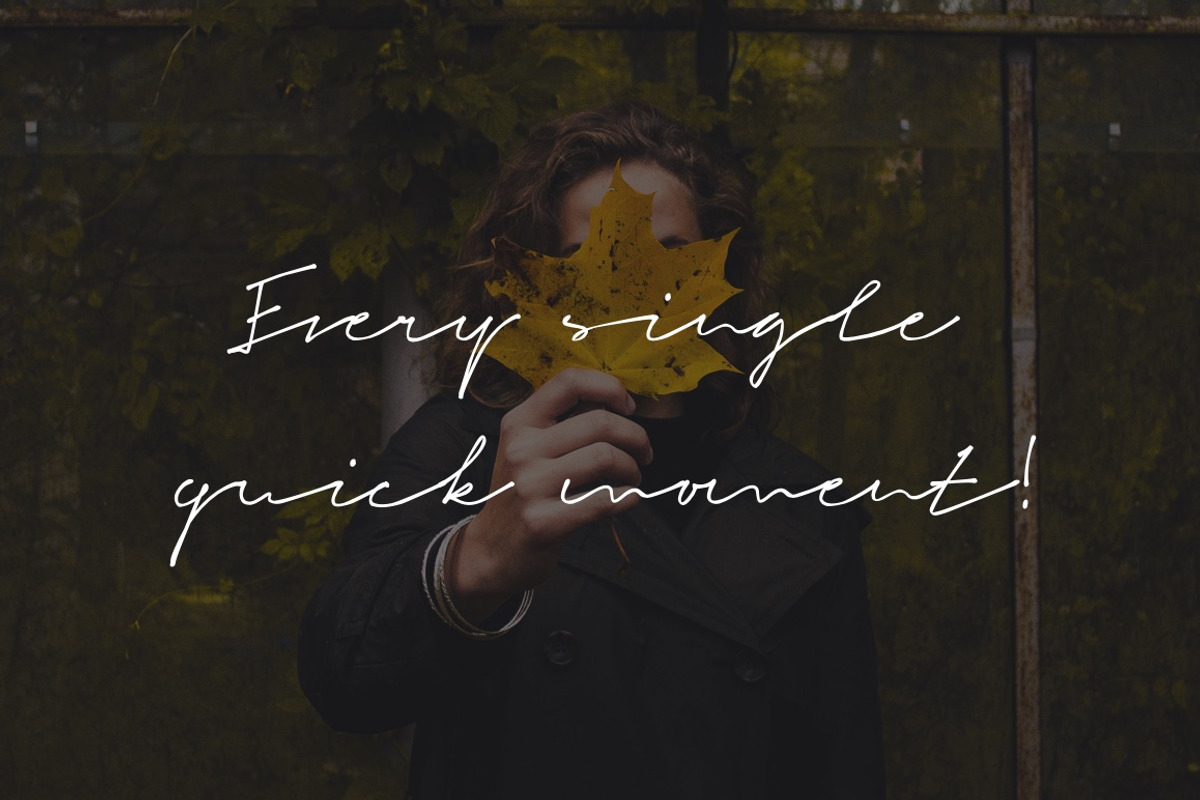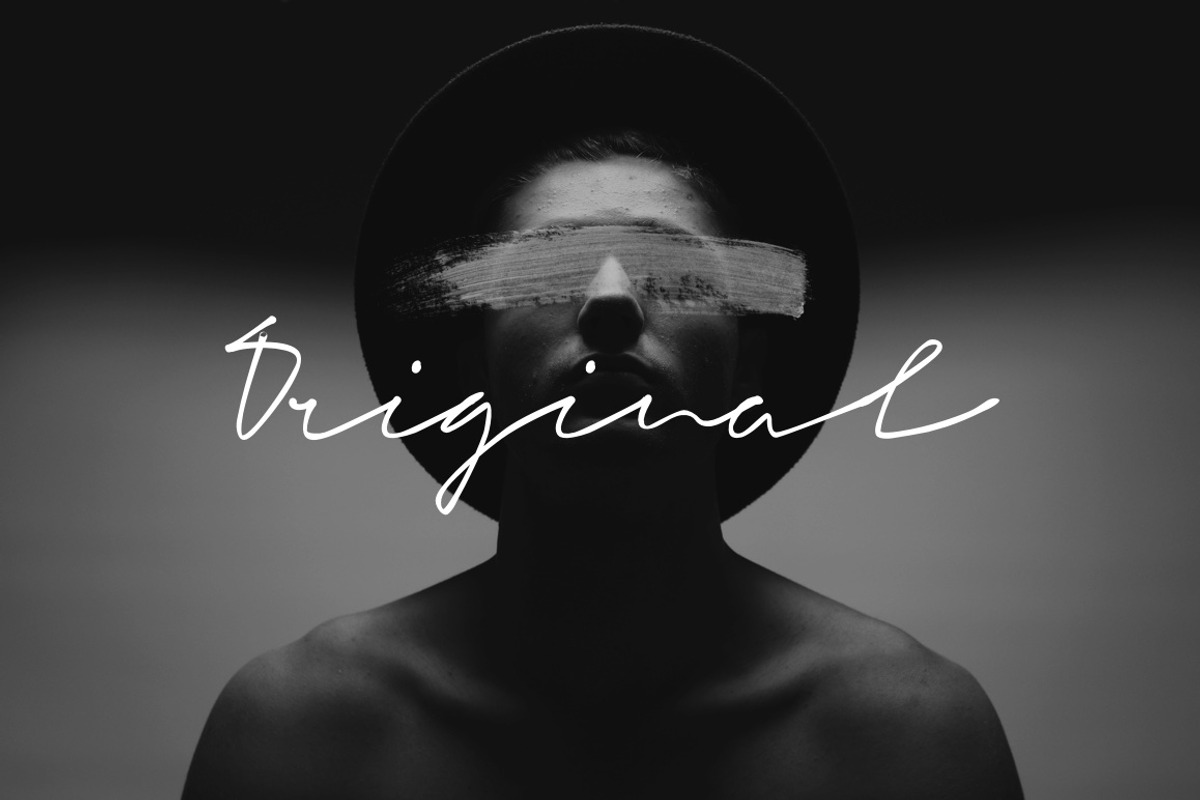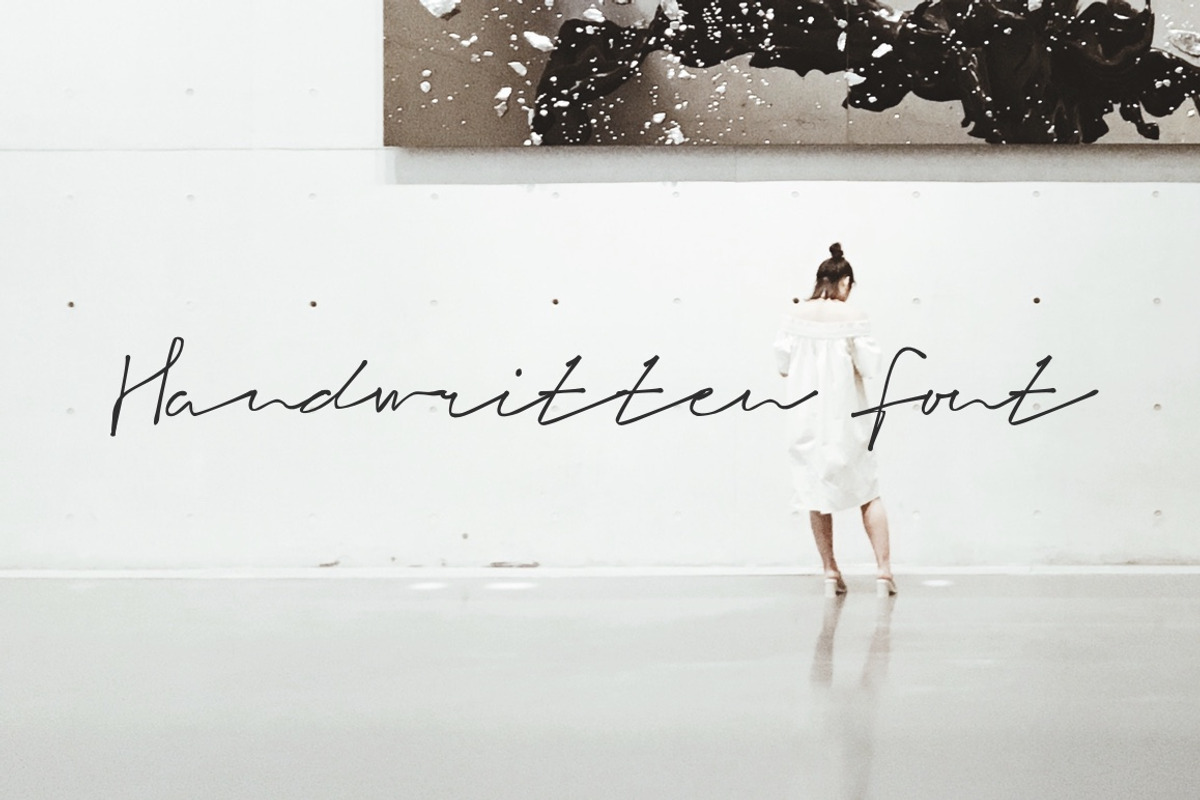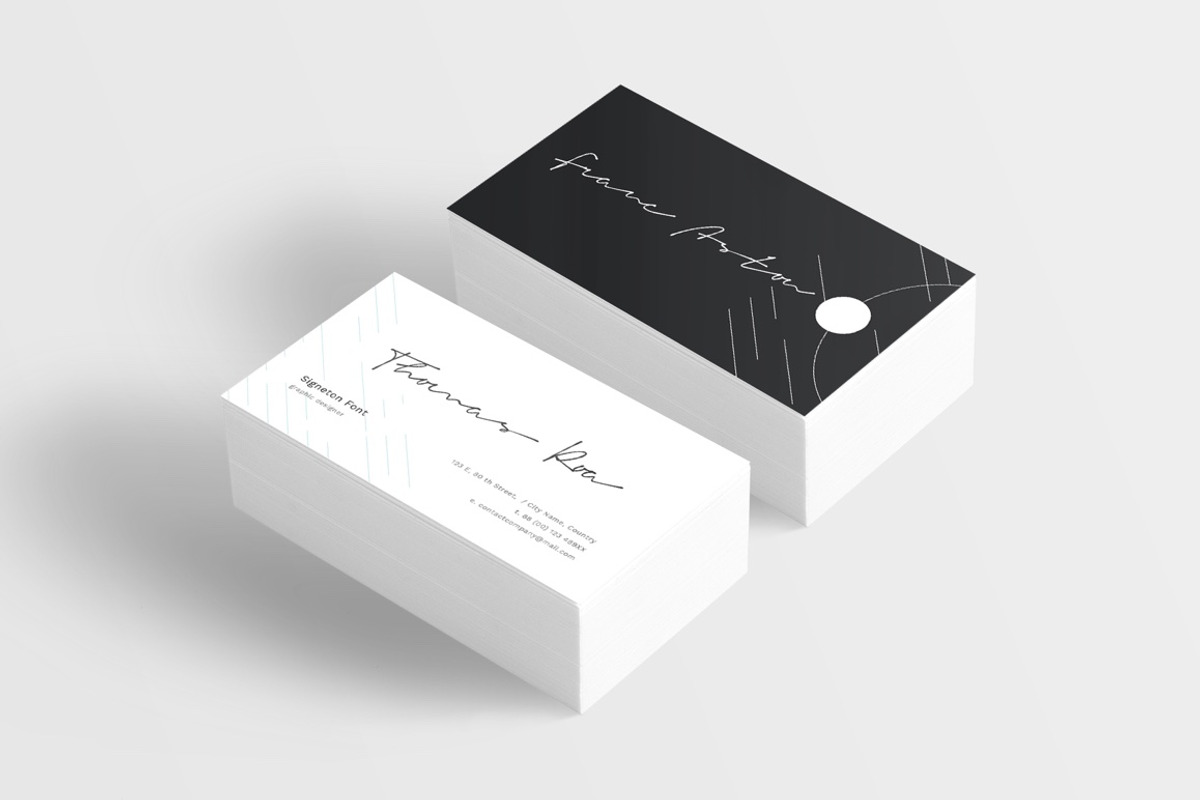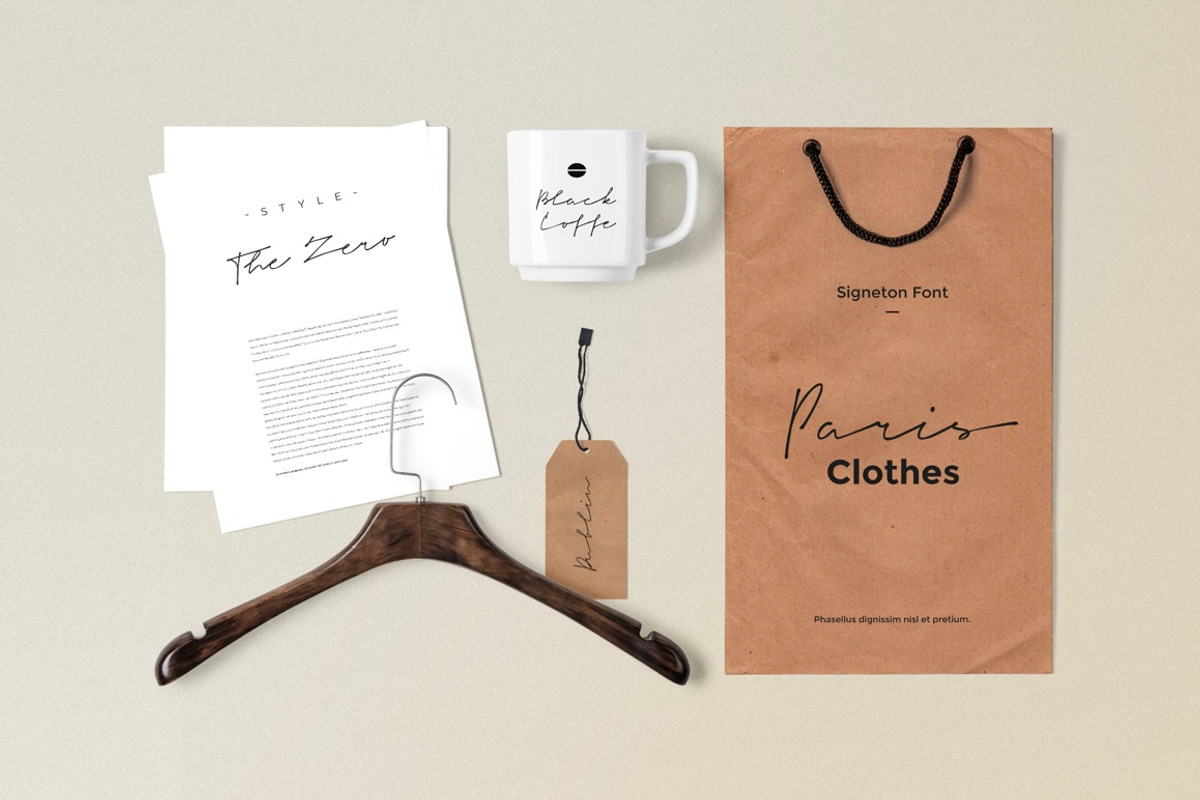
Signeton Signature Font
Signeton Signature Font by Goashape Studio is a font selected for branding, posters, packaging, typography.
- A handwritten script font containing upper and lowercase characters, numerals and a large range of punctuation.
Why Signeton Signature Font is worth a look
Signeton Signature Font by Goashape Studio fits naturally into Branding, posters, packaging, typography.